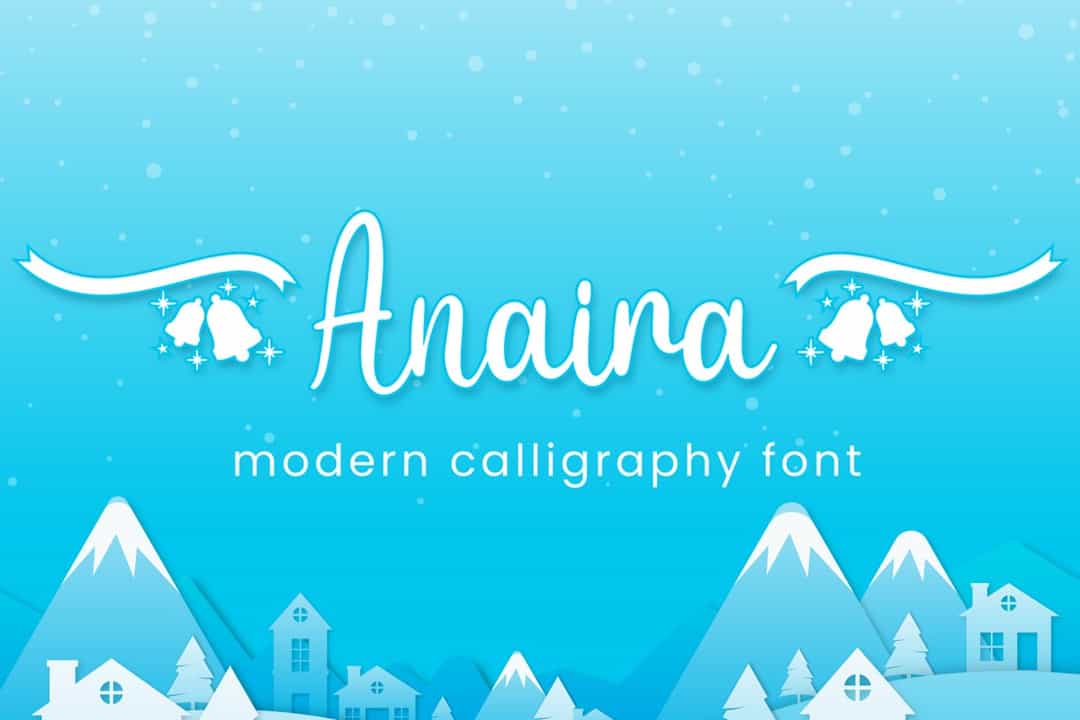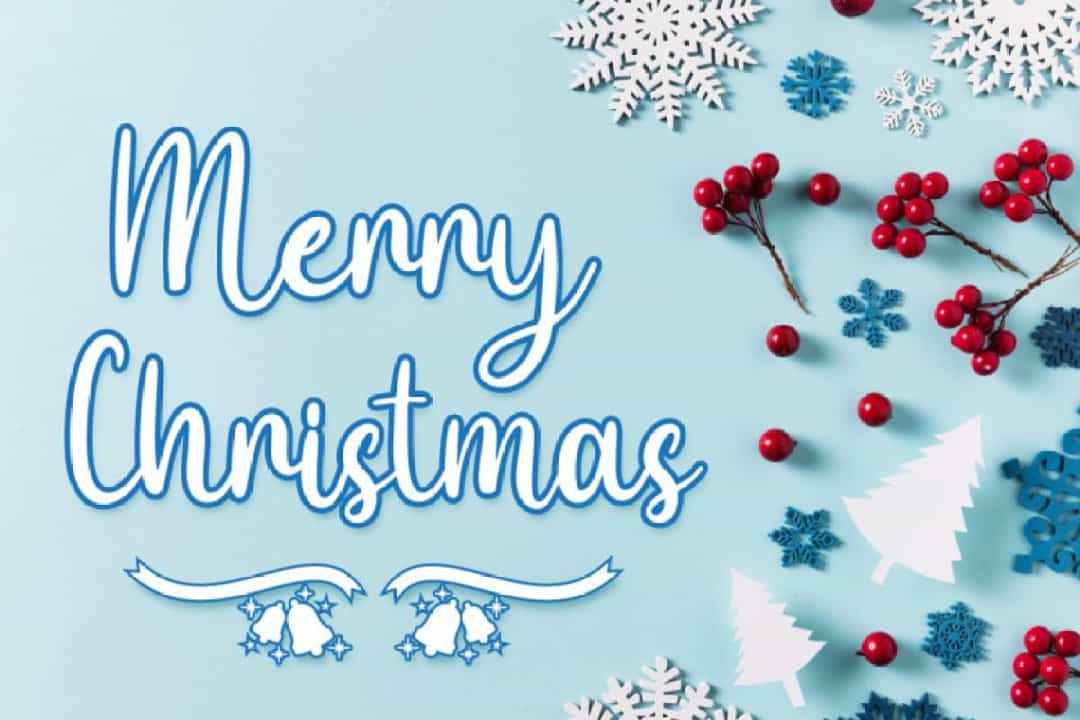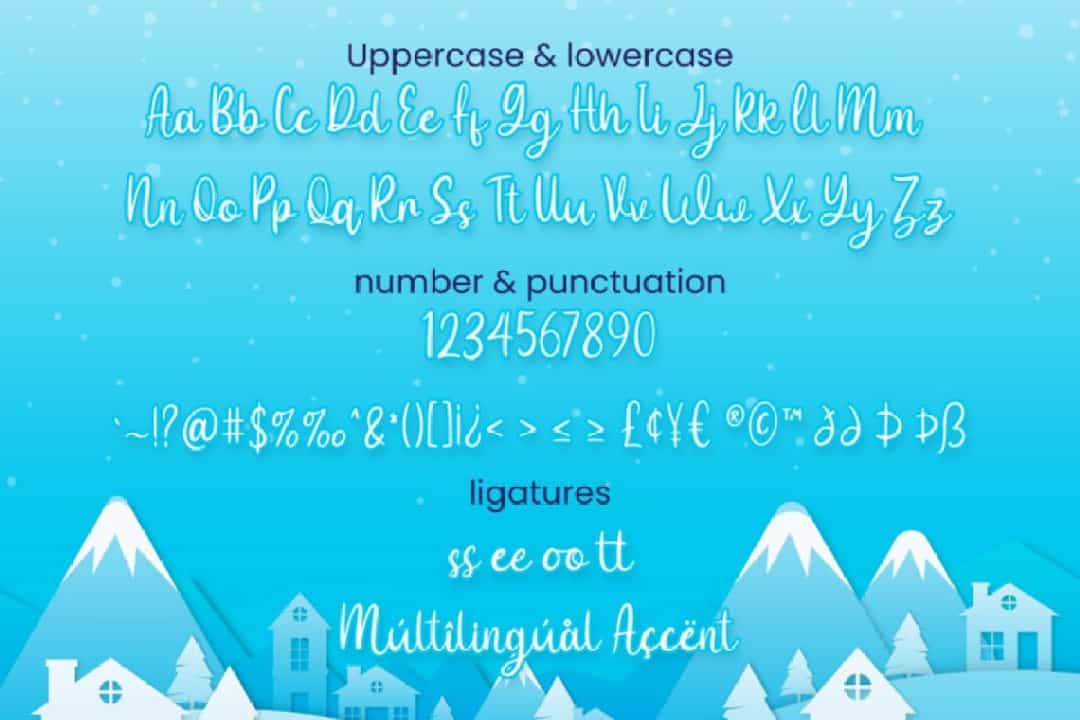
Discover Anaira Font, part of the Calligraphy Handwritten Script collection—a versatile and unique font perfect for adding a personal touch to your projects. Download it for free and enjoy crafting designs with style, from invitations to social media posts. This font is available exclusively for personal use, giving you the freedom to create without limits. Unlock your creativity with Anaira Font today!
Anaira is a beautiful handwritten font that comes with ribbons and bells as dingbats:- perfect for your Christmas promotion and design needs. You will always fall in love with this style due to its versatility and you will be able to create stunning designs.